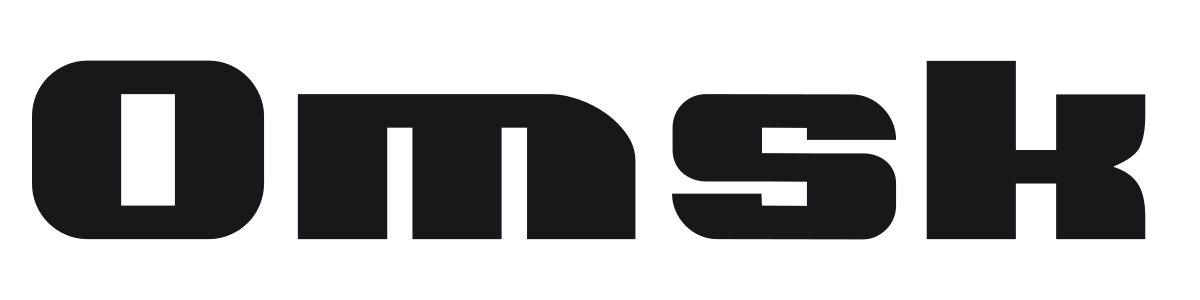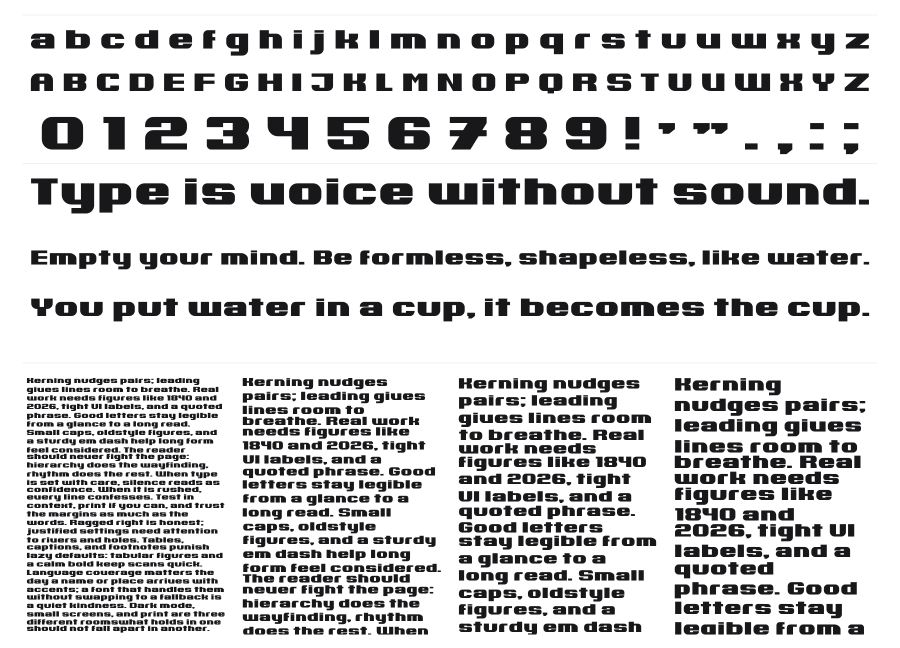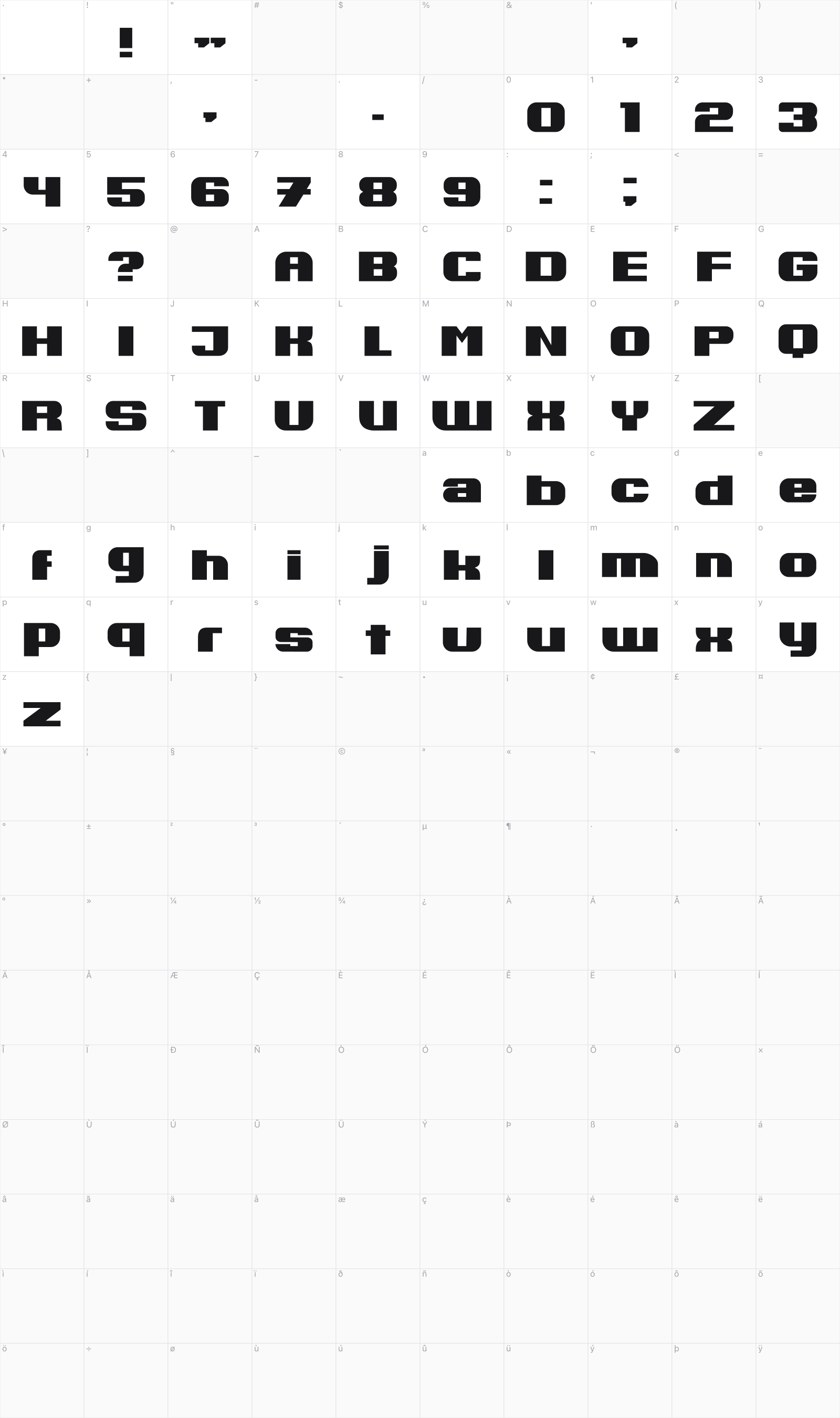
Omsk
Omsk is a heavy geometric sans-serif with ultra-bold proportions and a dense, almost monolithic presence on the page. Subtle rounding at interior corners softens what would otherwise be pure brutalism, giving it a contemporary edge that bridges Soviet constructivism and modern display design. At large sizes it commands immediate attention.